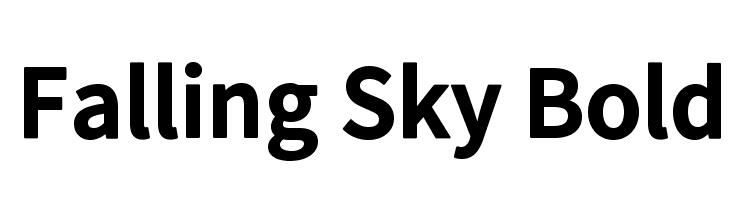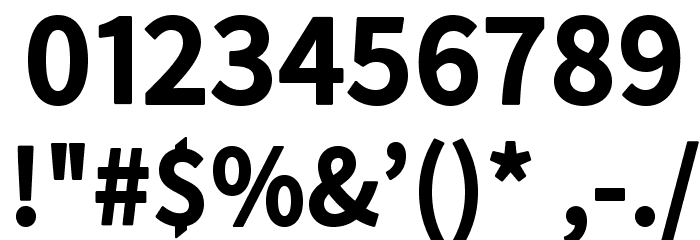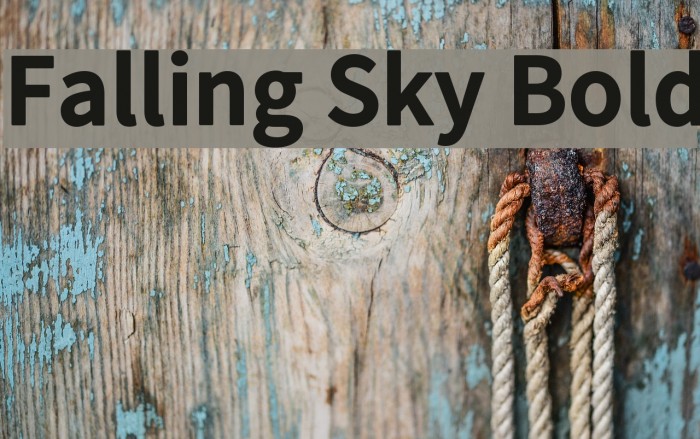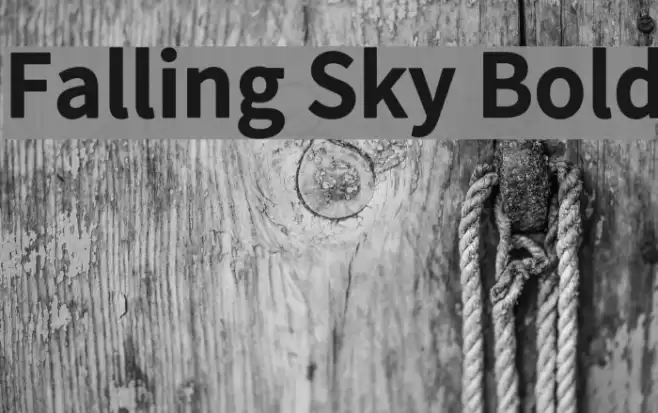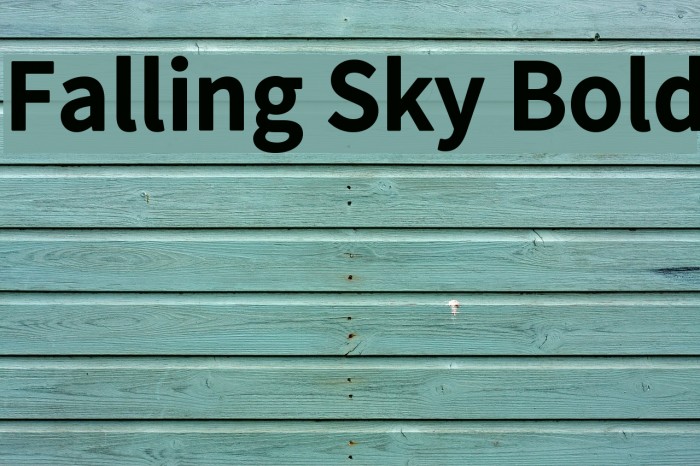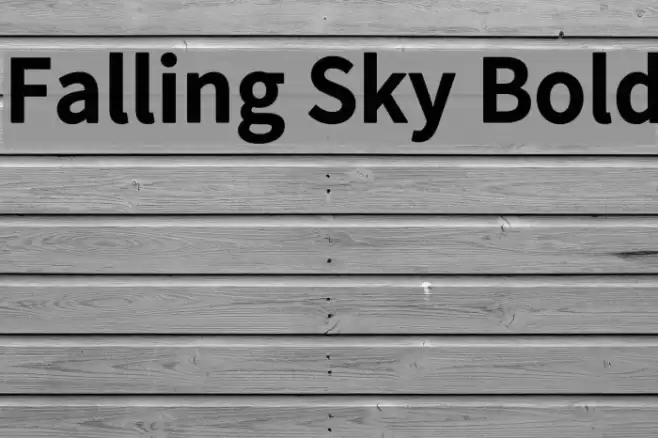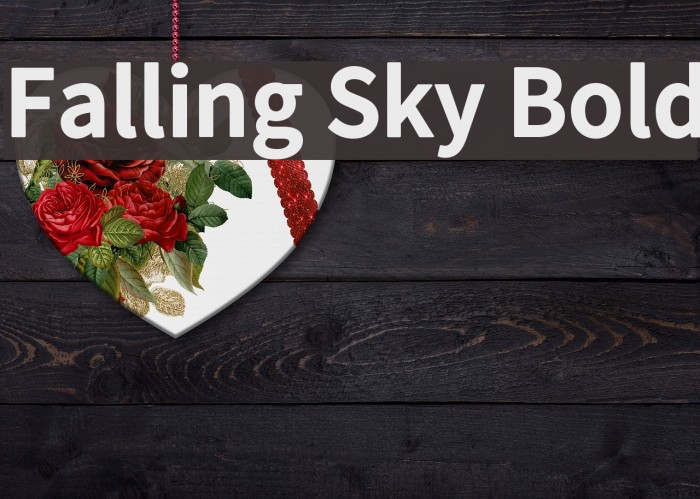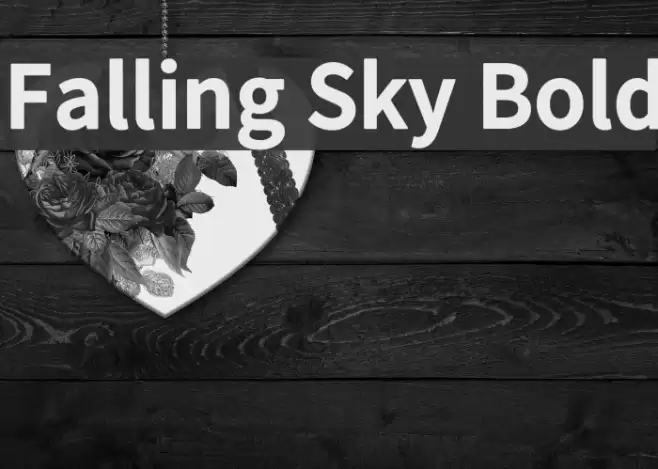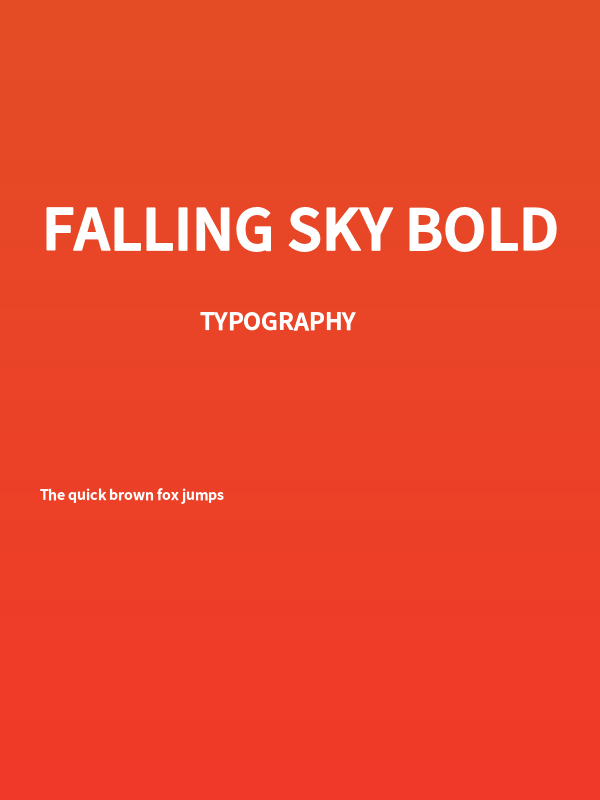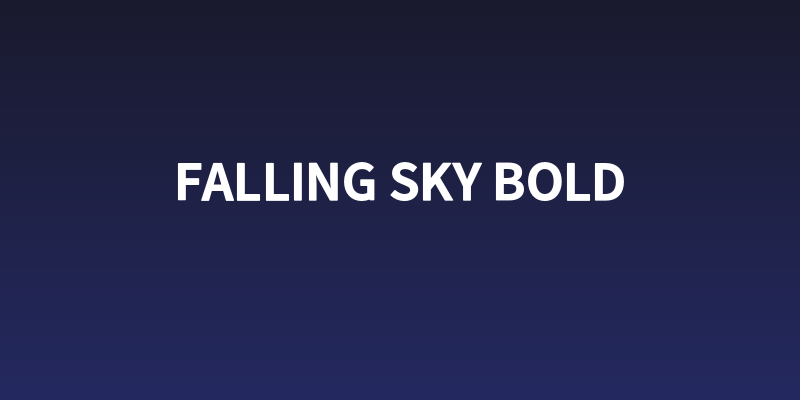
Falling Sky Bold Font
Falling Sky Bold Description
This font features a bold and robust design, characterized by thick strokes and a strong presence. The uppercase and lowercase letters maintain a consistent weight, providing a uniform appearance across all characters. The numerals are clear and easily distinguishable, making them suitable for various applications. The special characters are well-defined, adding versatility to the font's use. Its sans-serif style gives it a modern and clean look, ideal for contemporary design projects.
| Proposed Projects | Ideal for branding, headlines, posters, and digital media where a strong and modern presence is desired. |